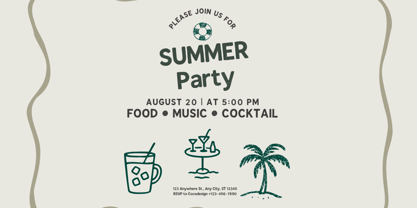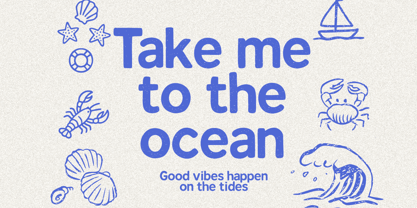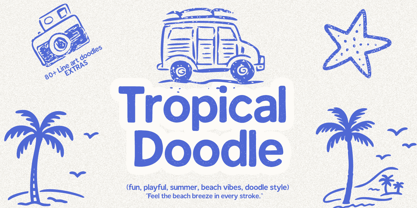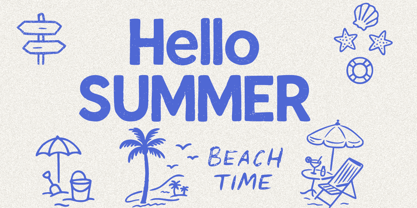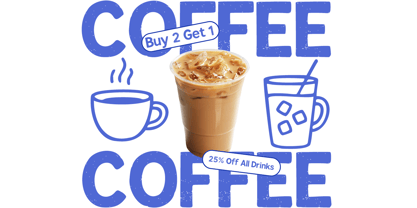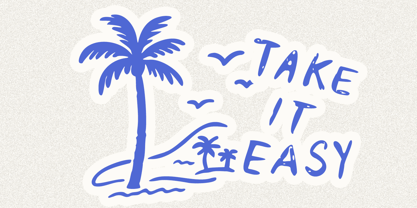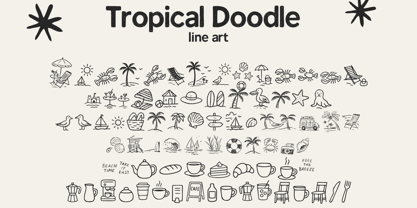
Tropical Doodle
by Cocodesign
The Tropical Doodle Font Family was designed by Muhammad Zaini and published by Cocodesign. Tropical Doodle contains 2 styles and family package options. More about this family
Tropical Doodle – Playful Summer Hand-Drawn Font Tropical Doodle is a delightful, hand-drawn display font inspired by the essence of tropical beaches and sunny summer days. Each letter showcases soft rounded edges and friendly line-stroke shapes, imparting a warm, relaxed, and carefree vibe—much like doodling on a sandy beach. This font is perfect for summer branding, beachwear labels, children's projects, travel content, posters, invitations, and lifestyle merchandise. Its readability and boldness ensure it stands out, brimming with personality, making it ideal for logos, headlines, packaging, and vibrant social media visuals. Additionally, this pack includes over 80 line-art doodles featuring palm trees, surf vans, waves, starfish, camera icons, beach scenes, and other tropical elements—ready to enhance your layouts and provide a cohesive summer aesthetic.
Designers: Muhammad Zaini
Foundry: Cocodesign